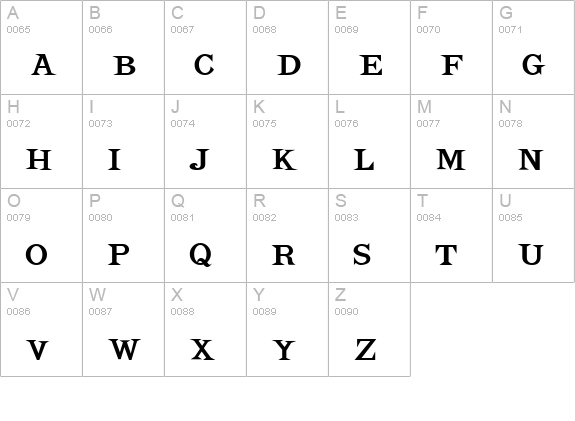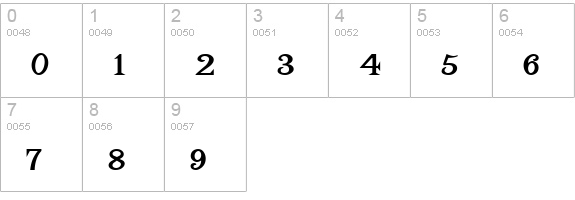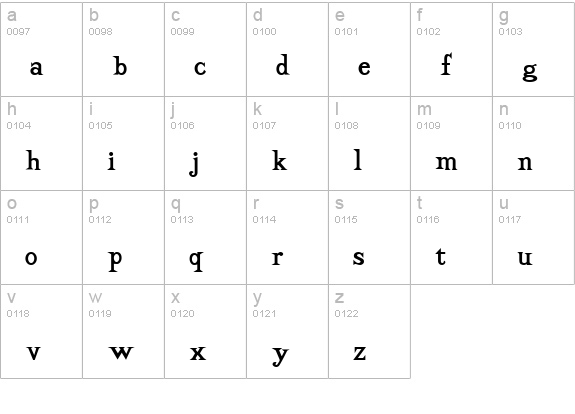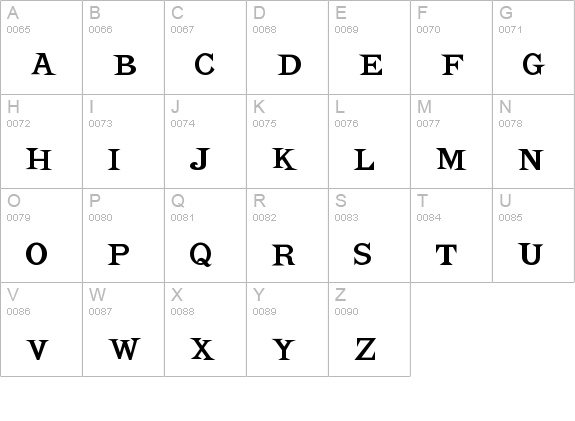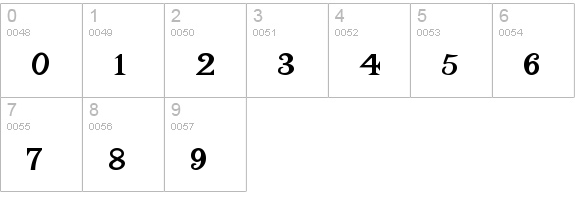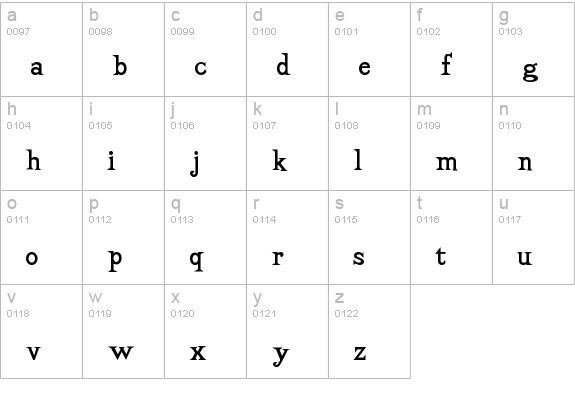
KenOnHoliday Font Details
Introducing KenOnHoliday, a breathtakingly beautiful font that is sure to transport you to a world of wanderlust and adventure. With its elegant and whimsical design, KenOnHoliday captures the essence of carefree exploration and invites you to embark on a typographic journey like no other. This font boasts a captivating blend of versatility and charm, making it perfect for a wide range of projects. Whether you're designing a travel magazine, creating eye-catching social media graphics, or adding a touch of elegance to your personal blog, KenOnHoliday has got you covered. But what sets KenOnHoliday apart from the rest is not just its stunning aesthetics, but also its incredible value. Yes, you read that right - this font is absolutely free! You can freely download KenOnHoliday at FontsMarket.com and start adding a touch of magic and wanderlust to your designs without spending a dime. So why wait? Unleash your creativity and let KenOnHoliday be your trusty companion on your design adventures. Whether you're dreaming of far-off destinations or simply looking to add a touch of whimsy to your everyday designs, KenOnHoliday is the perfect choice. Download it for free at FontsMarket.com and let the journey begin.